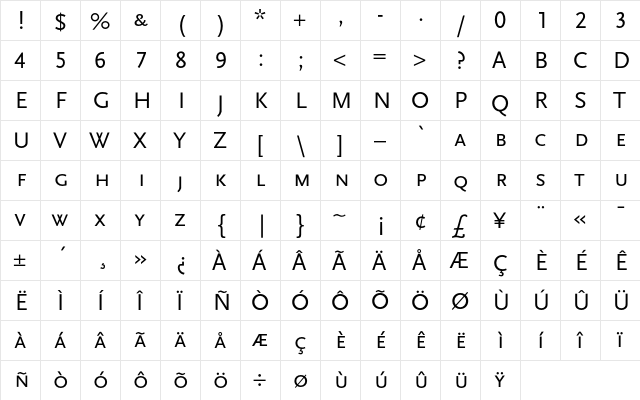
ScalaSans Caps Regular
Design Context for ScalaSans Caps Typeface
ScalaSans Caps is a composed and adaptable typeface that performs quietly and consistently across a wide range of design contexts.